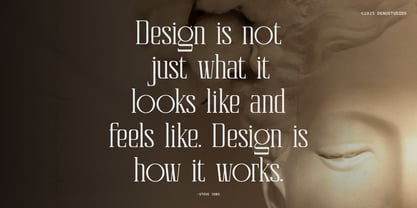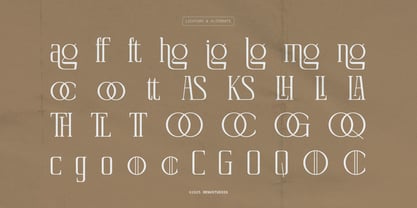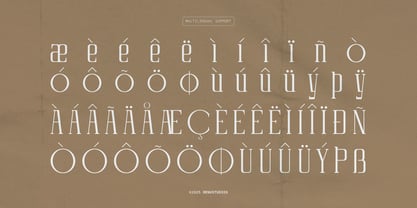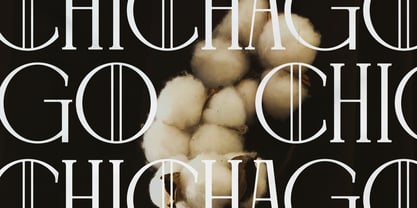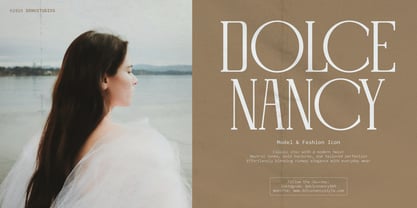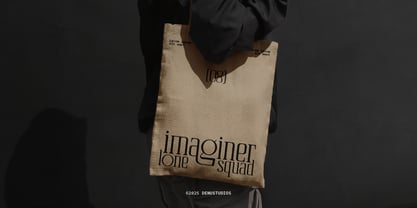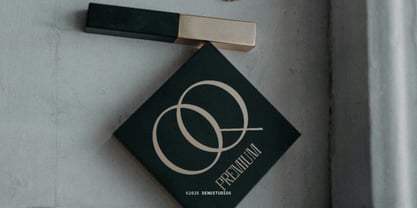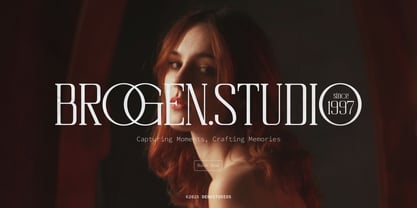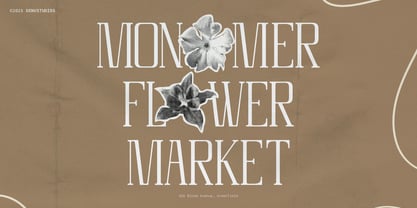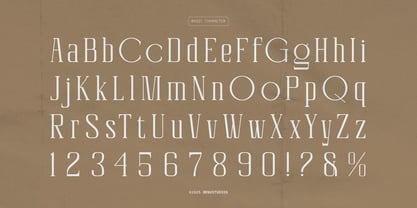
Celvio Monase
by Denustudio
The Celvio Monase Font Family was designed by Dede Nugraha and published by Denustudio. Celvio Monase contains 2 styles and family package options. More about this family
Celvio Monase | New Display Serif, from Denustudios, suitable for any projects such as: logos, branding projects, homeware designs, product packaging, mugs, quotes, posters, shopping bags, t-shirts, book covers, name card, invitation cards, greeting cards, label, photography, watermark, special events, and all your other lovely projects that need a New Display Serif taste.
• Regular and Italic
• Alternate and Ligature
• Fonts include multilingual support